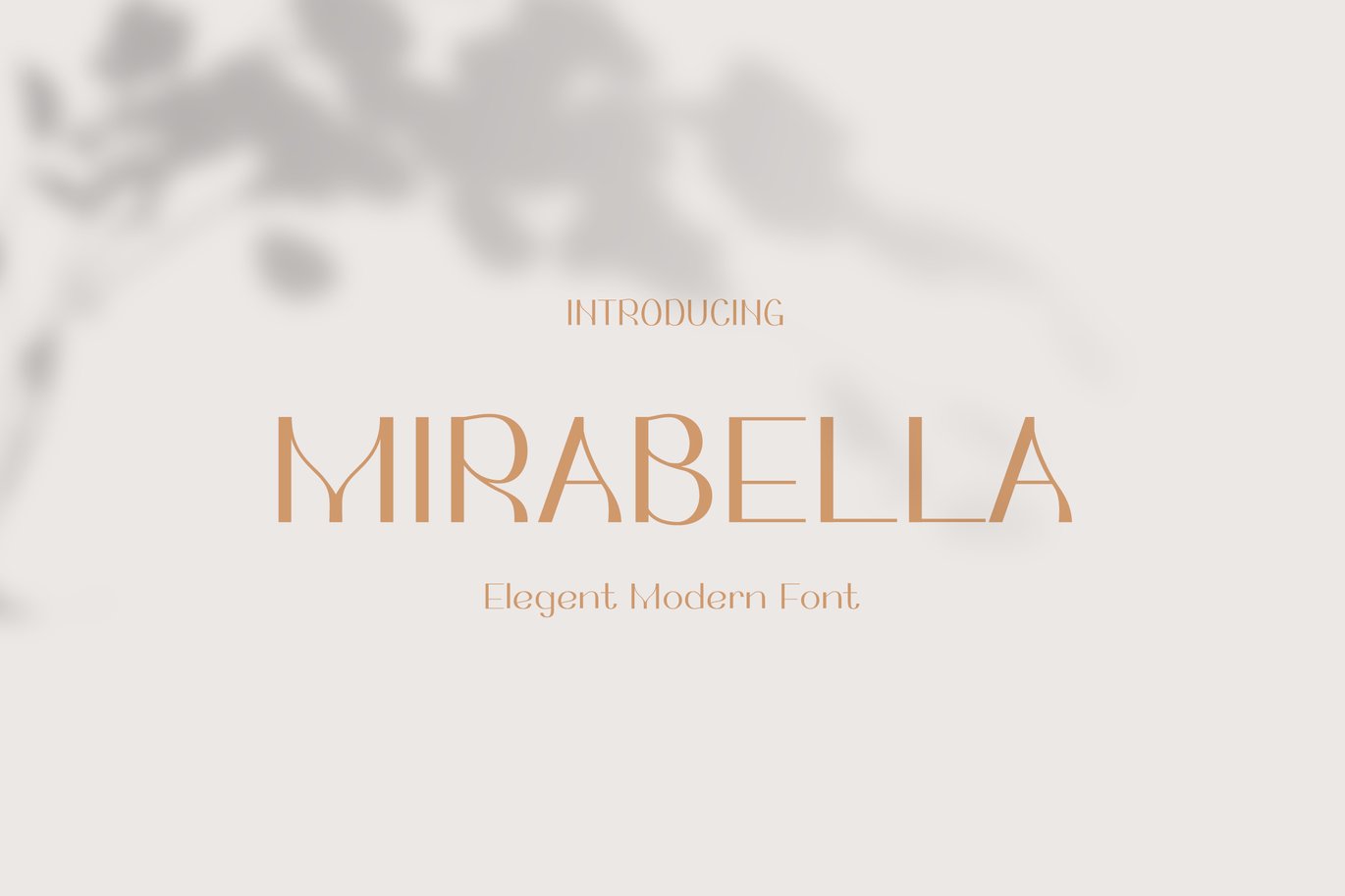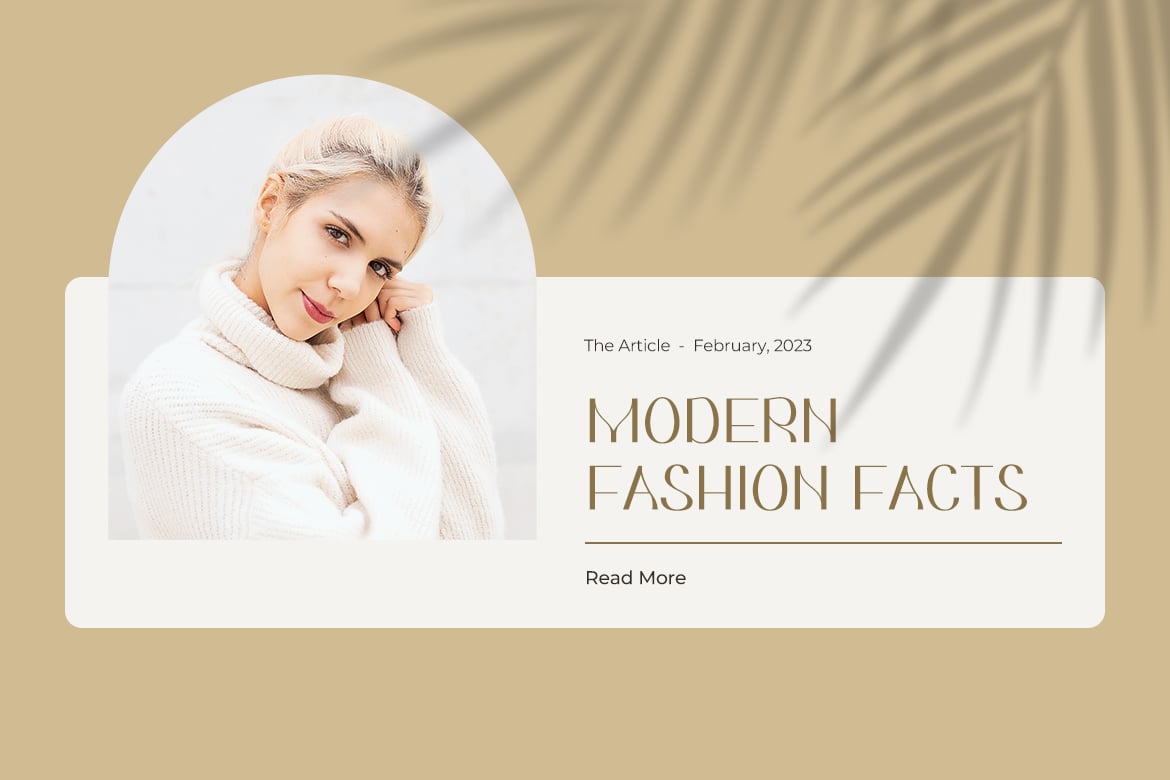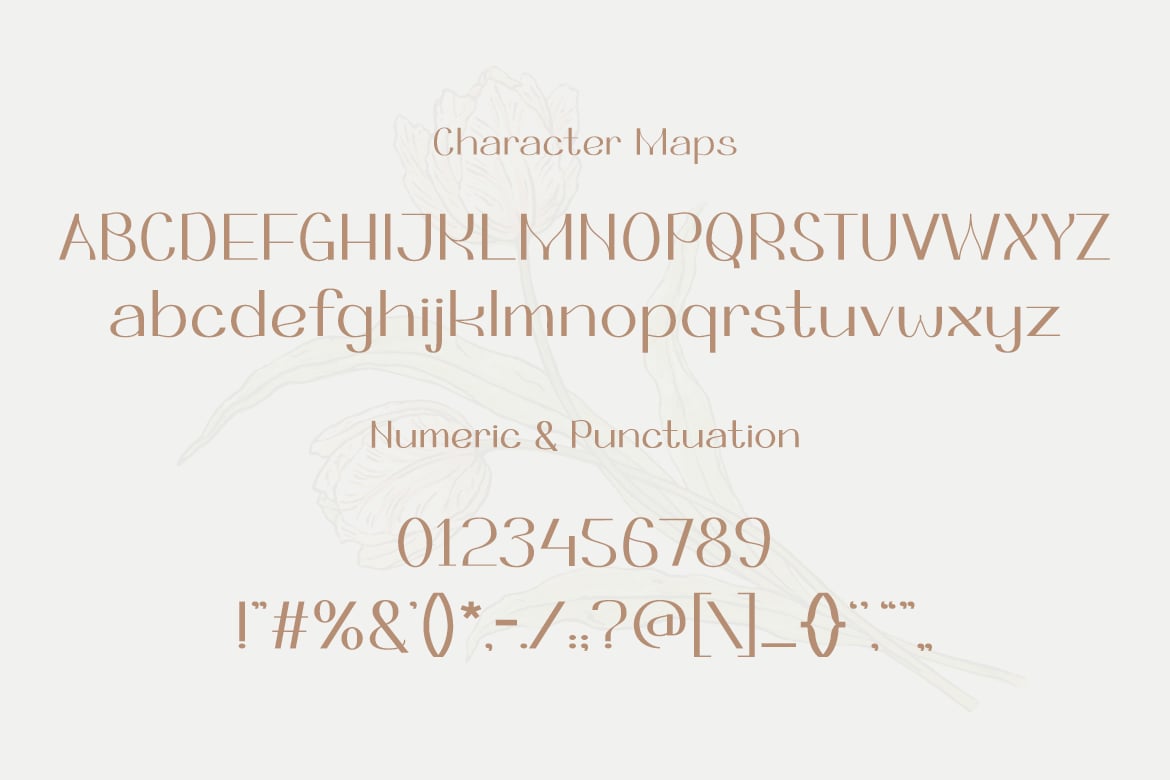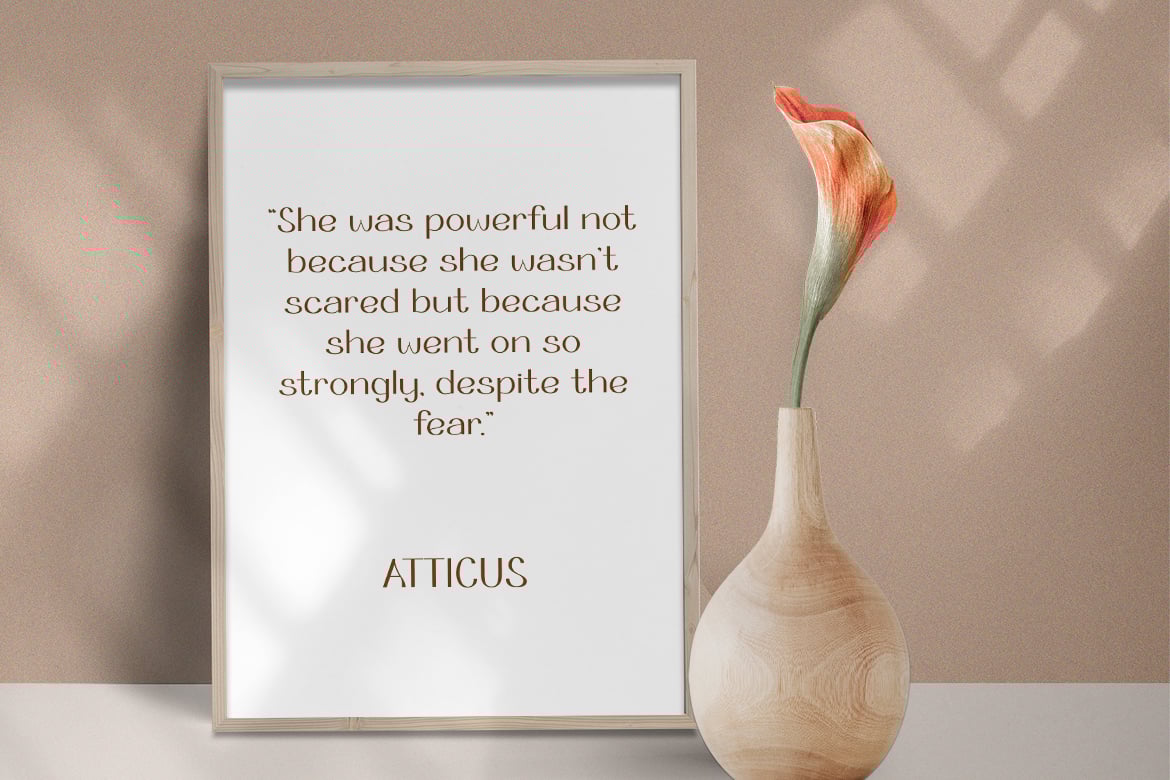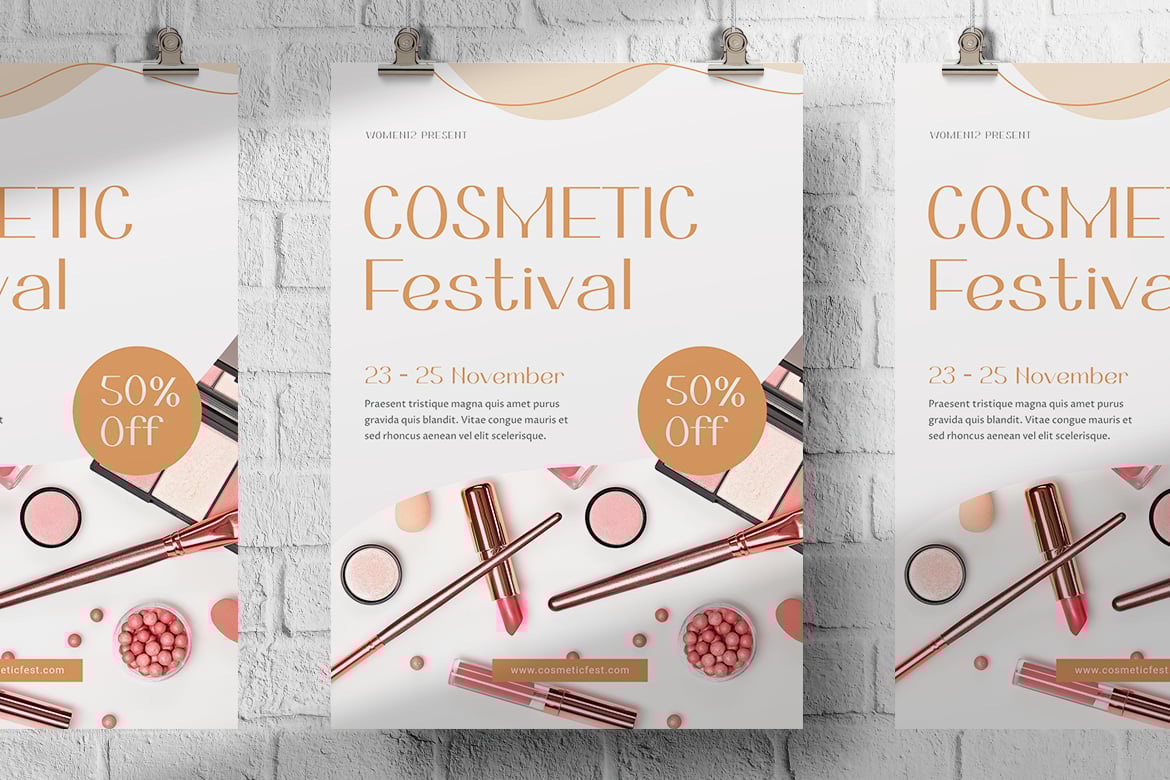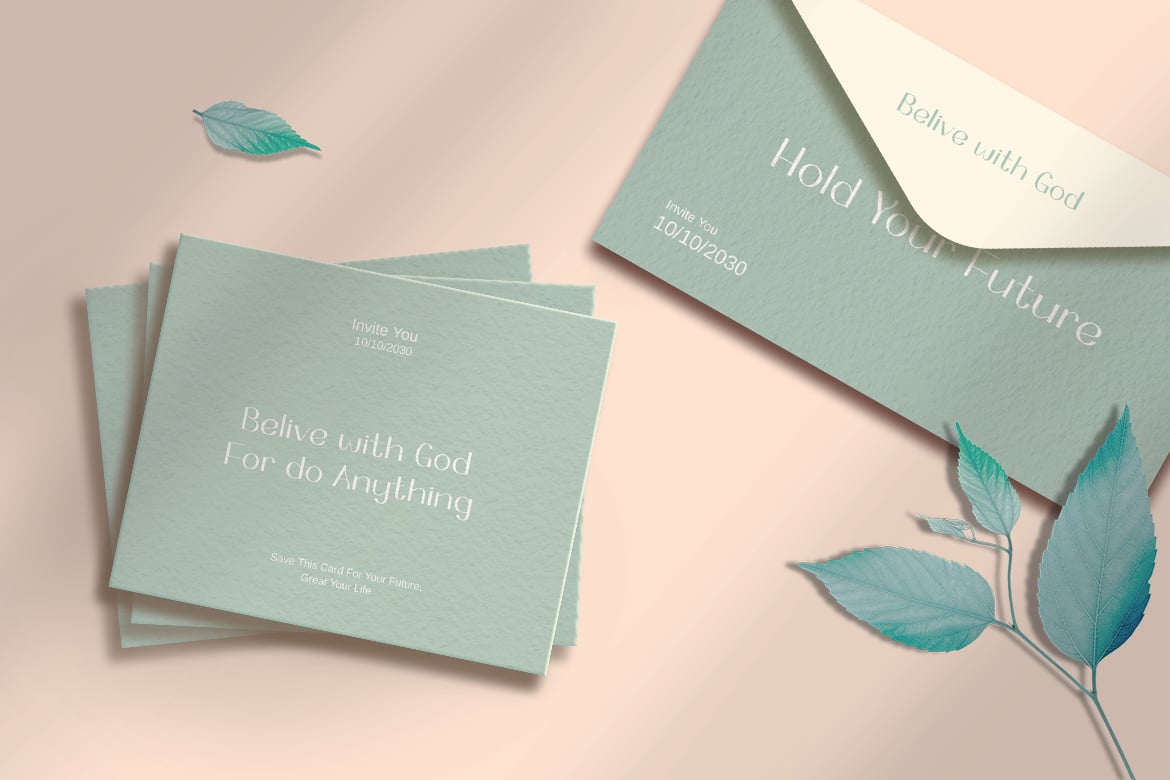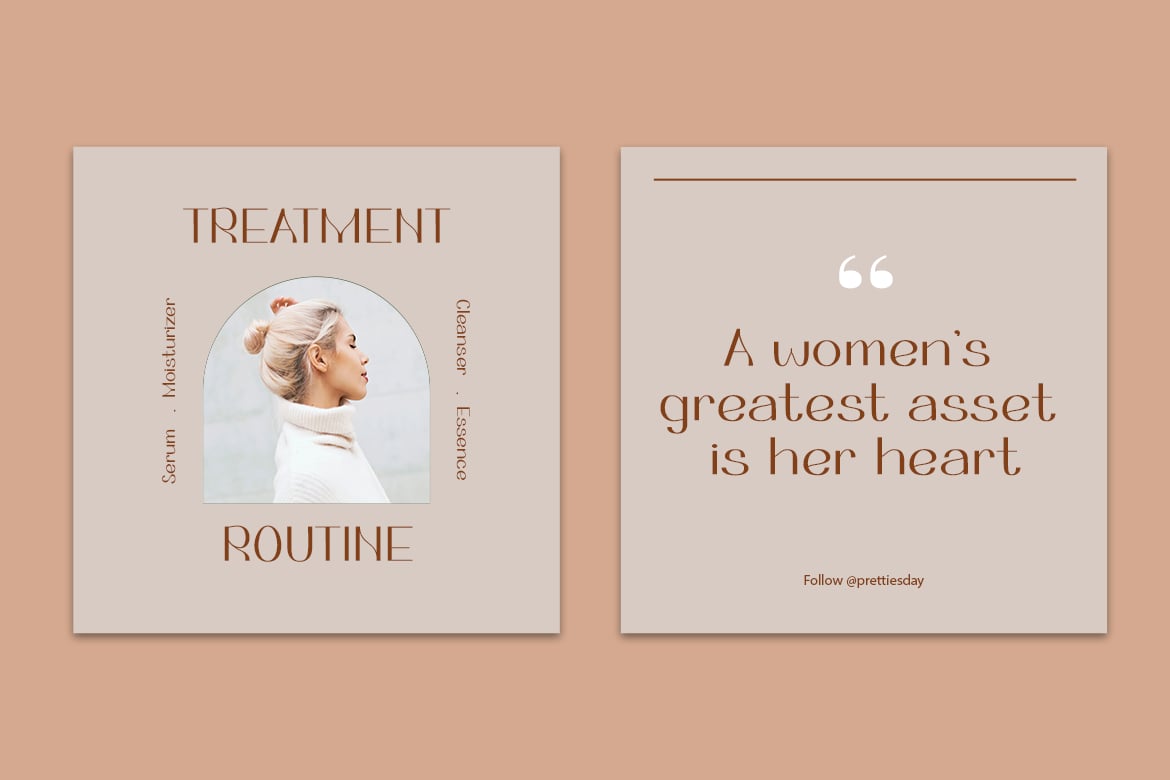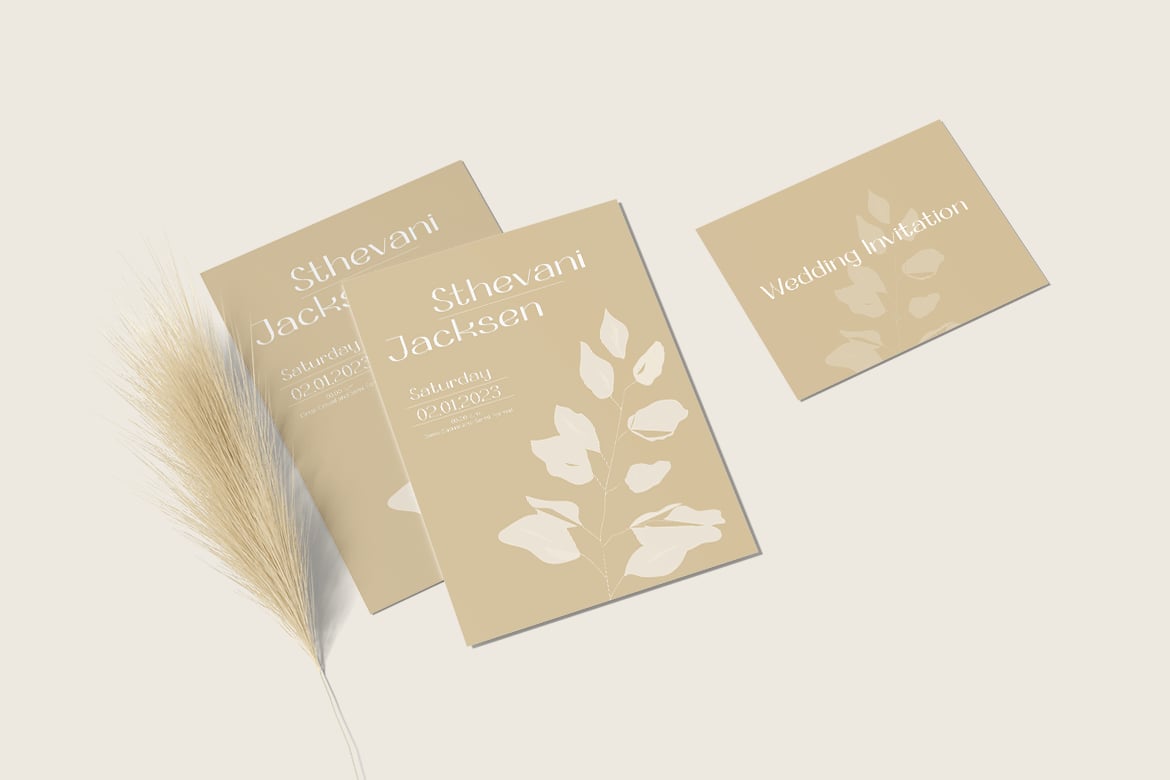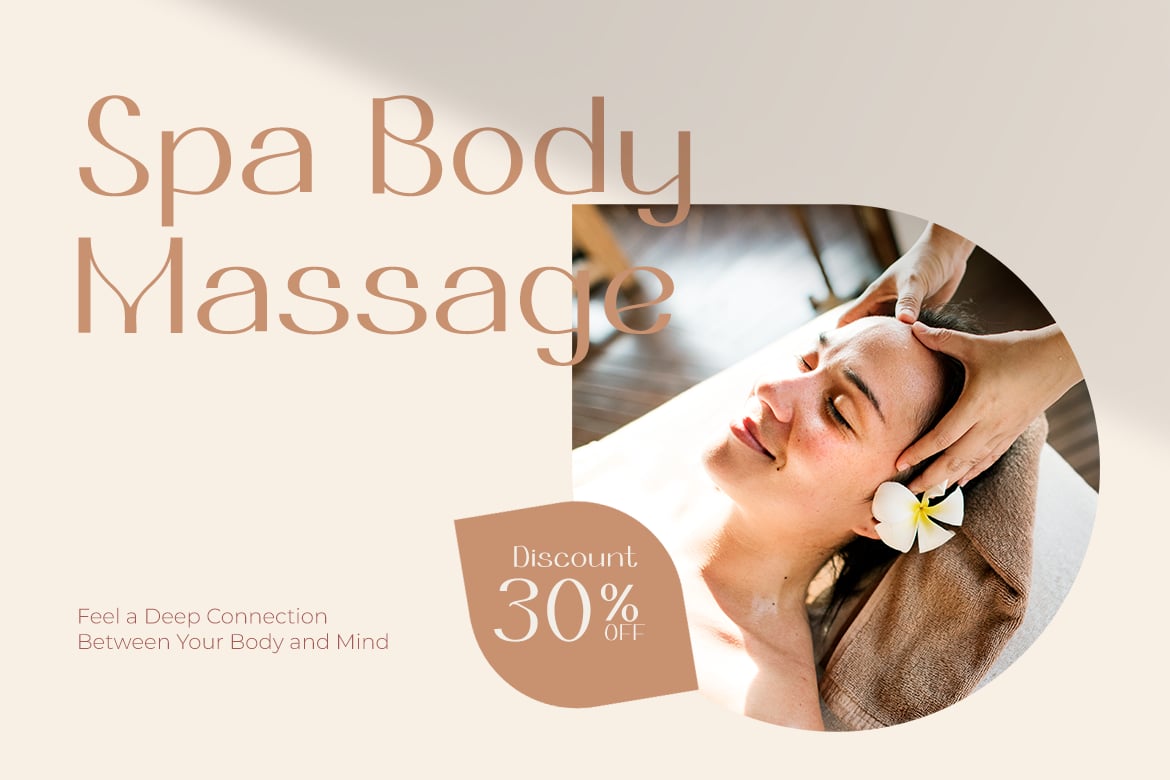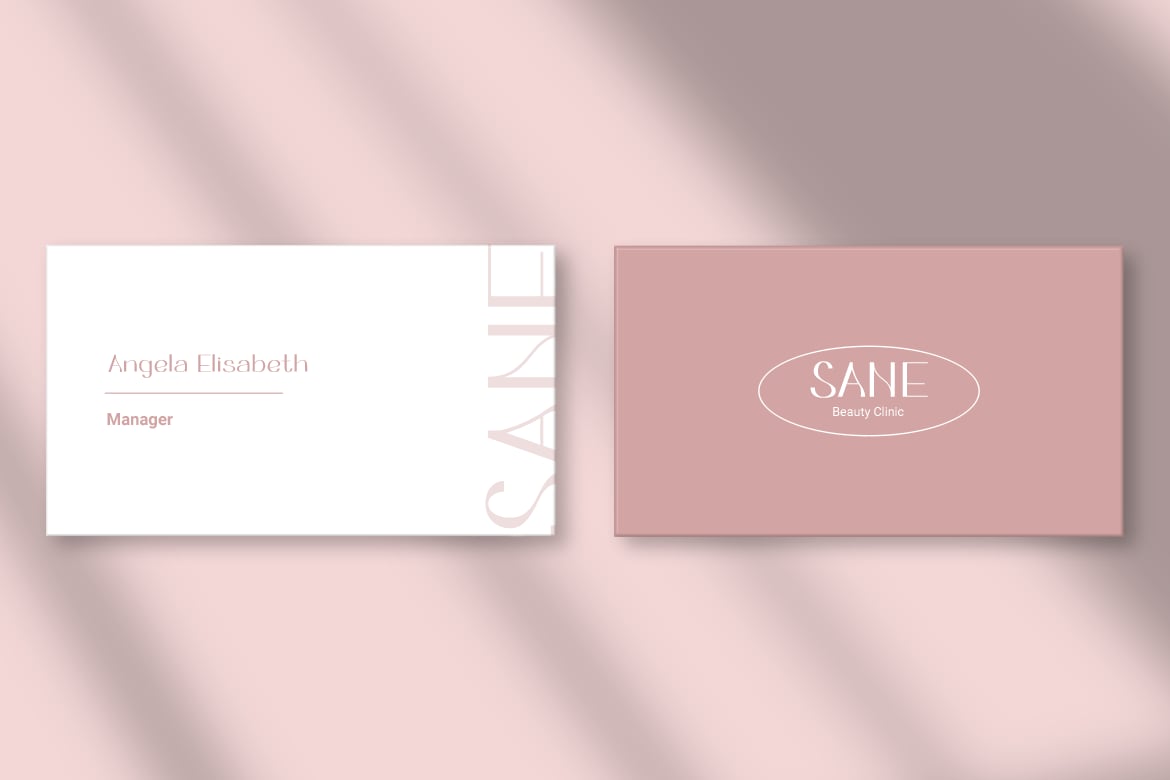
Luxury Branding Font – Mirabella
MIRABELLA is a sophisticated modern serif designed to bring an air of luxury and timeless beauty to your projects. With its delicate letterforms, subtle contrast, and artistic flourishes, this font exudes elegance while maintaining a clean and modern aesthetic.
Perfectly suited for premium branding, high-end invitations, feminine logo design, and editorial layouts, MIRABELLA offers a touch of refinement and class that elevates any project. Whether used in cosmetic packaging, wedding stationery, upscale boutiques, or elegant social media graphics, this typeface effortlessly blends minimalism with grace.
Why Choose MIRABELLA?
- Refined & Delicate Design – Perfectly crafted for luxury and high-end branding.
- Timeless & Minimalist Appeal – A modern serif with soft curves and elegant contrasts.
- Perfect for Branding & Editorials – Ideal for magazines, wedding designs, and premium logos.
- Versatile Application – Works seamlessly across print, digital, and luxury packaging.
- Subtle yet Striking Presence – The combination of sophistication and readability makes it an exceptional choice.
MIRABELLA is designed for wedding invitations, luxury cosmetics, high-end branding, premium lifestyle magazines, boutique packaging, elegant fashion branding, and social media aesthetics. Whether creating delicate beauty product labels, stylish typography layouts, or elegant event branding, MIRABELLA ensures an exquisite and timeless visual impact.